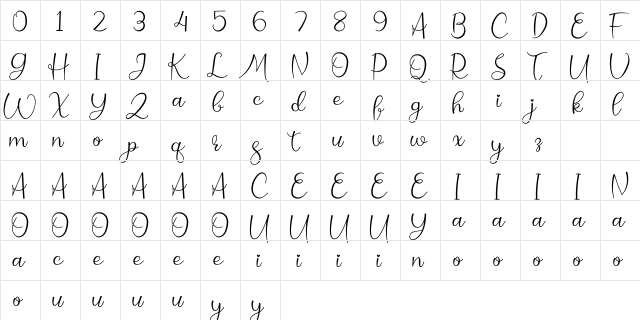
Lakeisha Regular
Design Context for Lakeisha Typeface
Lakeisha is a composed and adaptable typeface that performs quietly and consistently across a wide range of design contexts.